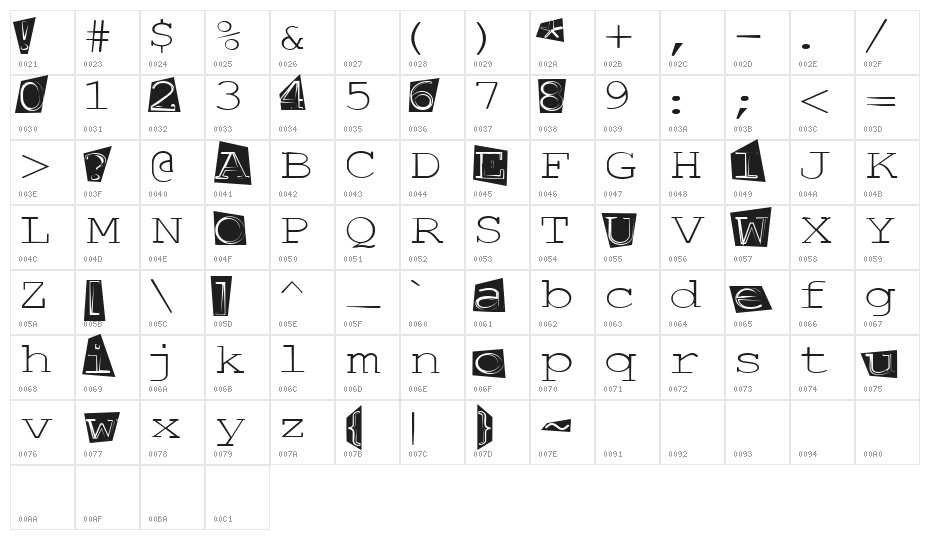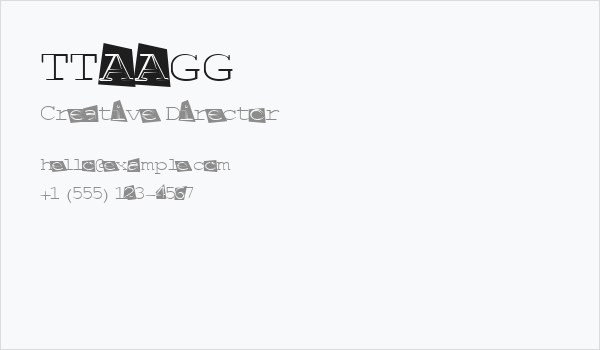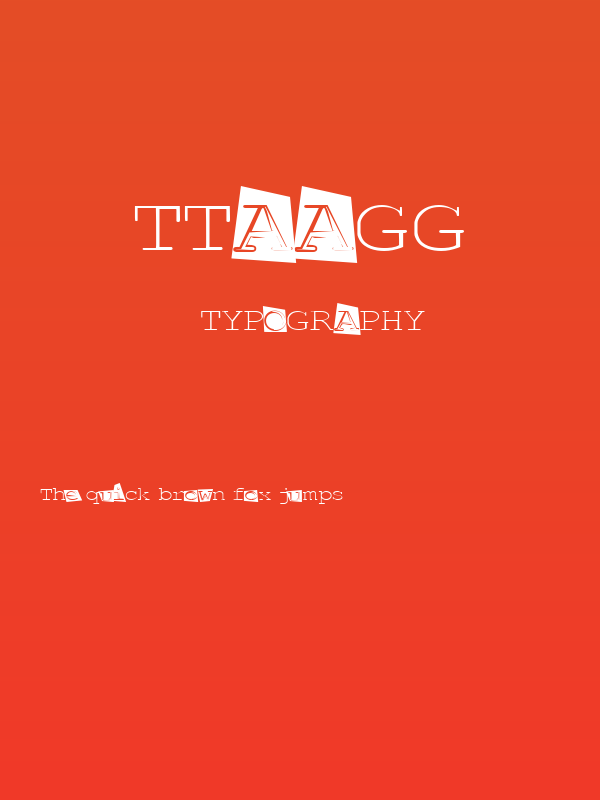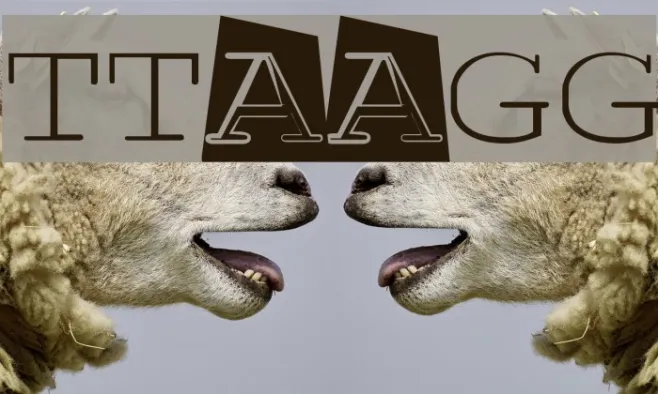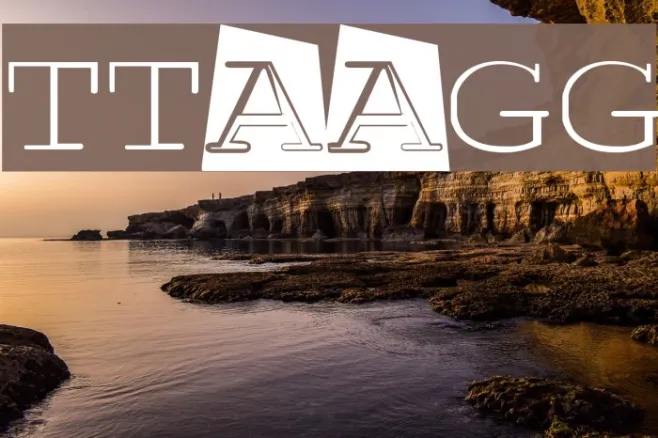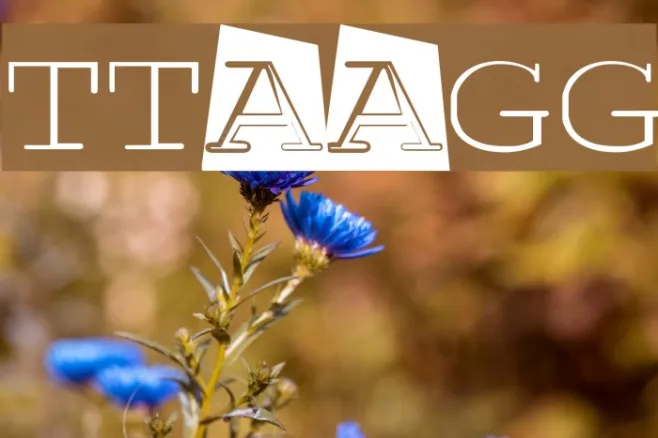
TTAAGG Font
TTAAGG Description
This font presents a unique blend of classic serif elements with a modern twist. Each character is designed with a playful, cut-out style, where some letters are placed on irregular black shapes, creating a dynamic and eye-catching appearance. The contrast between the thin, elegant lines of the serif characters and the bold, irregular backgrounds adds a sense of depth and movement. The font maintains a consistent baseline, but the varying backgrounds give it an unpredictable and lively rhythm. This style is particularly effective for projects that require a touch of whimsy or a standout visual impact.
| Proposed Projects | Ideal for creative posters, children's book covers, playful branding, and eye-catching headlines. |